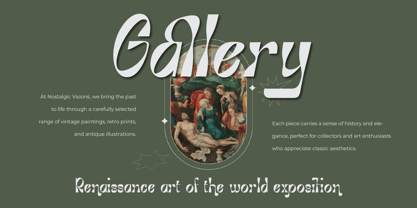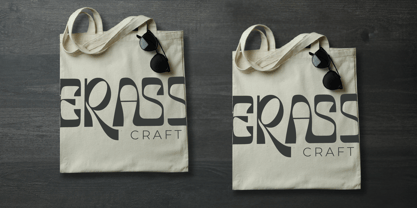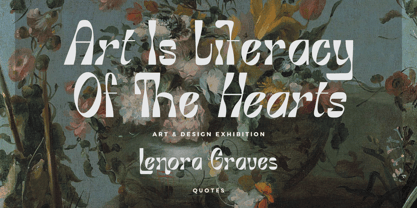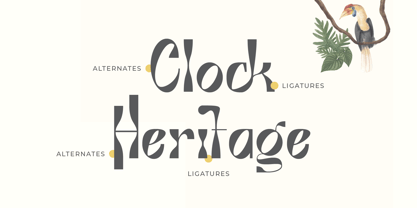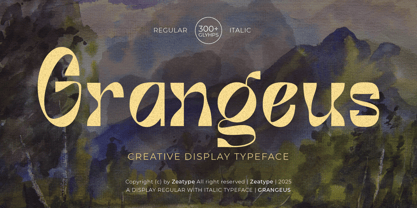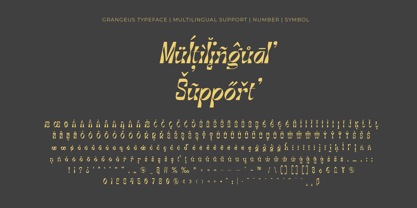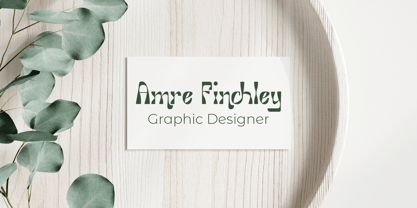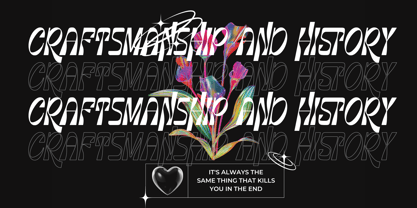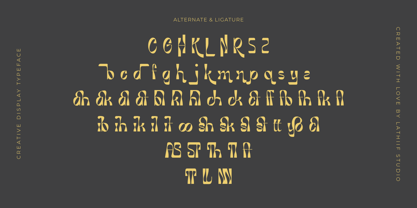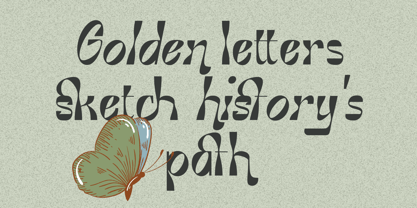
Grangeus
by Zeatype
The Grangeus Font Family was designed by Hany Fauzan and published by Zeatype. Grangeus contains 2 styles and family package options. More about this family
Grangeus – Art Nouveau Elegance
Introducing Grangeus by Zeatype, a captivating Art Nouveau-inspired font that blends elegance with organic charm. Designed in two styles, Regular and Italic, Grangeus features flowing curves, decorative details, and a timeless aesthetic perfect for branding, packaging, posters, and editorial design. Its intricate letterforms exude sophistication, making every word a work of art. Whether you seek vintage allure or modern refinement, Grangeus delivers a harmonious balance of beauty and functionality.